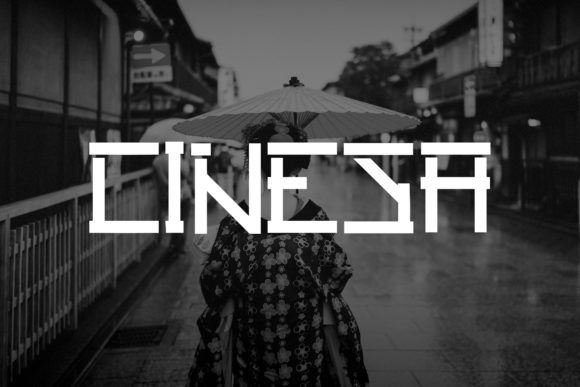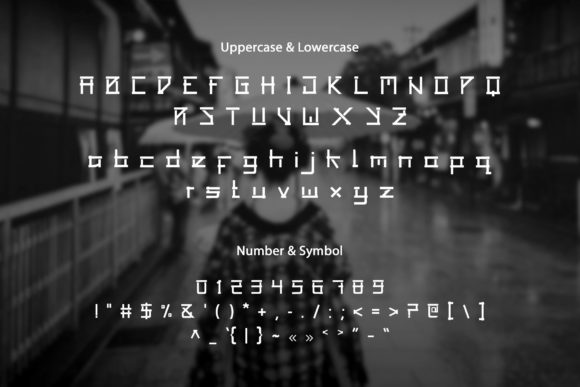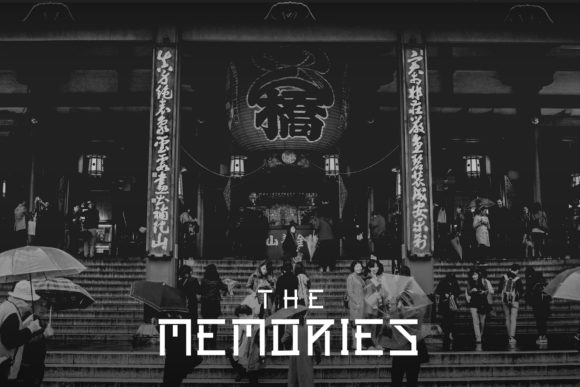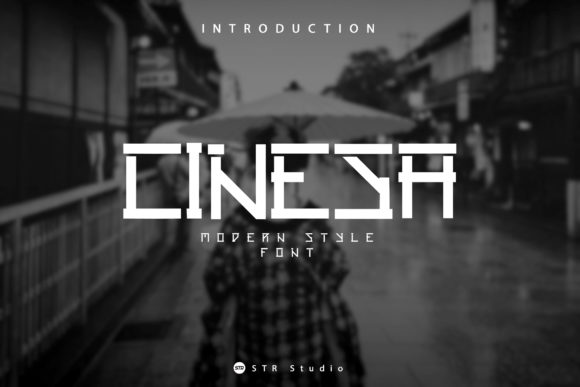
Cinesa Font: Elevate Your Designs with a Modern Geometric Style
Are you looking for a font that can add a touch of modernity and sophistication to your designs? Look no further than Cinesa Font. This geometric styled display font is perfect for designers and crafters who want to take their projects to the next level. With its clean lines, precise curves, and versatile style, Cinesa Font is sure to become a favorite in your collection.
The Characteristics of Cinesa Font
Cinesa Font is a modern, geometric styled display font that boasts a range of characteristics that make it perfect for a variety of design projects. Some of its key features include:
- Geometric style: Cinesa Font features a geometric style that is both modern and sleek. Its clean lines and precise curves make it perfect for designs that require a touch of sophistication.
- Display font: Cinesa Font is a display font, which means it’s perfect for headlines, titles, and other large text elements. Its bold and eye-catching style is sure to grab attention and make your designs stand out.
- Versatile: Despite its geometric style, Cinesa Font is surprisingly versatile. It can be used for a range of design projects, from branding and advertising to packaging and digital design.
Why Choose Cinesa Font?
So why should you choose Cinesa Font for your next design project? Here are just a few reasons:
- Easy to read: Despite its bold and geometric style, Cinesa Font is surprisingly easy to read. This makes it perfect for designs that require a clear and concise message.
- Highly customizable: Cinesa Font is highly customizable, which means you can adjust its size, color, and style to fit your design needs.
- Unique style: Cinesa Font has a unique style that is sure to make your designs stand out. Its geometric style is both modern and sophisticated, making it perfect for designers who want to create something truly unique.
How to Use Cinesa Font in Your Designs
Cinesa Font is a versatile font that can be used in a range of design projects. Here are a few ideas to get you started:
- Branding and advertising: Cinesa Font is perfect for branding and advertising projects that require a bold and eye-catching style.
- Packaging design: Cinesa Font can be used to create stunning packaging designs that are sure to stand out on store shelves.
- Digital design: Cinesa Font is perfect for digital designs, such as website headers, social media graphics, and more.
Tips for Getting the Most Out of Cinesa Font
Here are a few tips for getting the most out of Cinesa Font:
- Experiment with different sizes: Cinesa Font looks great in a range of sizes, from large display text to smaller body text.
- Play with color: Cinesa Font can be used with a range of colors, from bold and bright to more muted and subtle.
- Combine with other fonts: Cinesa Font can be paired with other fonts to create a unique and interesting design.
Cinesa Font is a modern, geometric styled display font that is perfect for designers and crafters who want to take their projects to the next level. With its clean lines, precise curves, and versatile style, Cinesa Font is sure to become a favorite in your collection. Whether you’re working on a branding project, packaging design, or digital design, Cinesa Font is a great choice. So why wait? Add Cinesa Font to your projects today and see the difference for yourself!
The only limit is your imagination, so don’t be afraid to get creative and push the boundaries of what’s possible with Cinesa Font. With its modern geometric style and versatile design, the possibilities are endless.